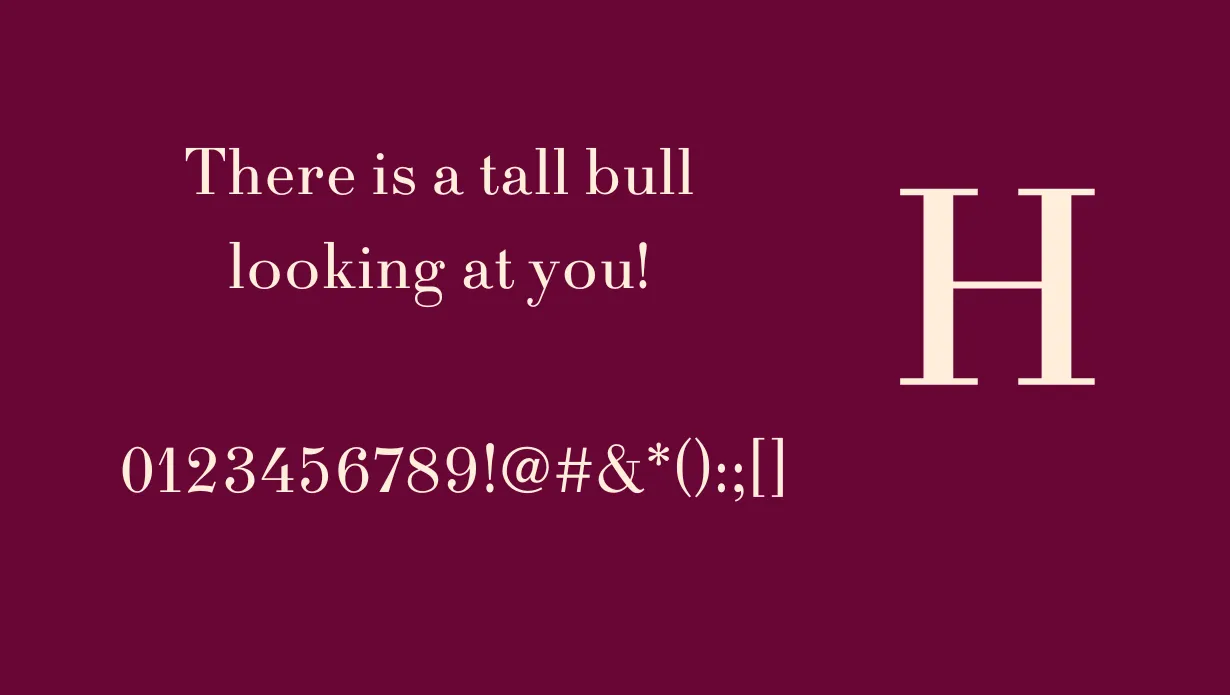
HTF Didot FontĀ is free to make use of with your personal initiatives. It comes with a superbly fashionable design that makes it suitable for all forms of print and digital designs. You can use it anywhere you want.
It is similar to shalinta calligraphy also right down to earth, making it high-quality for homegrown designs that wish to encourage trust.
Style Of HTF Didot Font